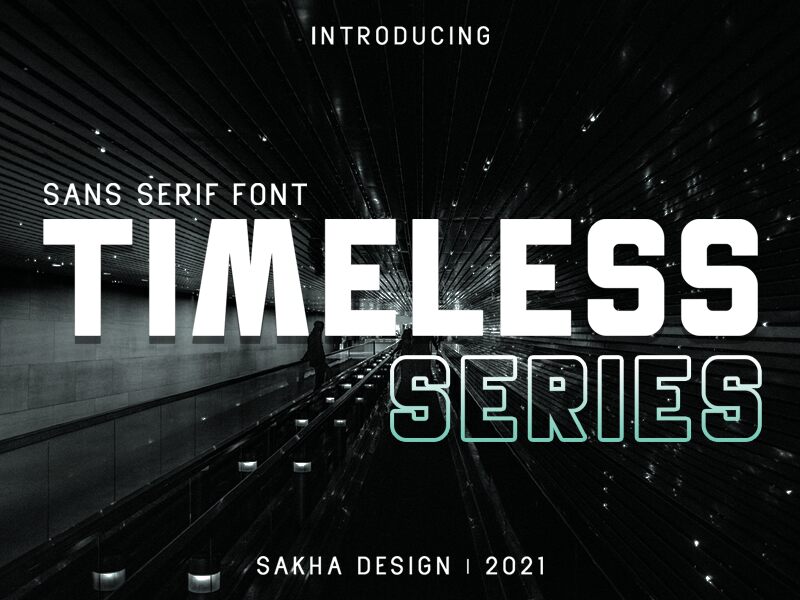
The Timeless Series font by Alif Ryan Zulfikar is a bold sans serif typeface that is perfect for modern projects in need of a timeless touch. Its strong lines and thick strokes make it suitable for anything from logos and headlines to posters and social media graphics. The bold weight of the font ensures that it stands out, making it ideal for designs that require impact and attention-grabbing visuals. Whether you're creating a sleek website or an eye-catching advertising campaign, the Timeless Series font is sure to deliver the professional look you desire.